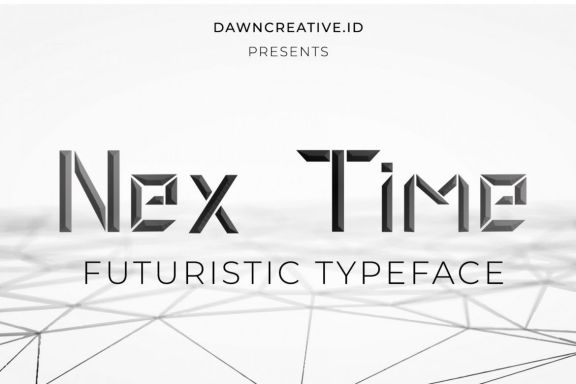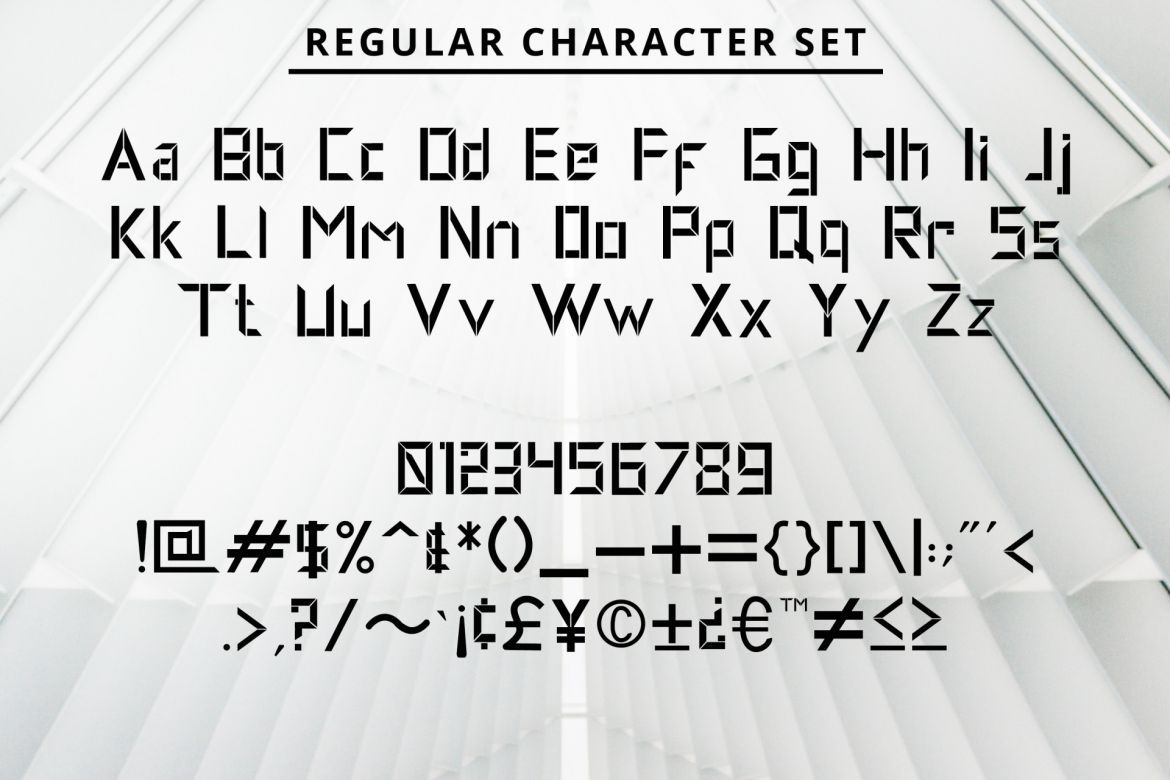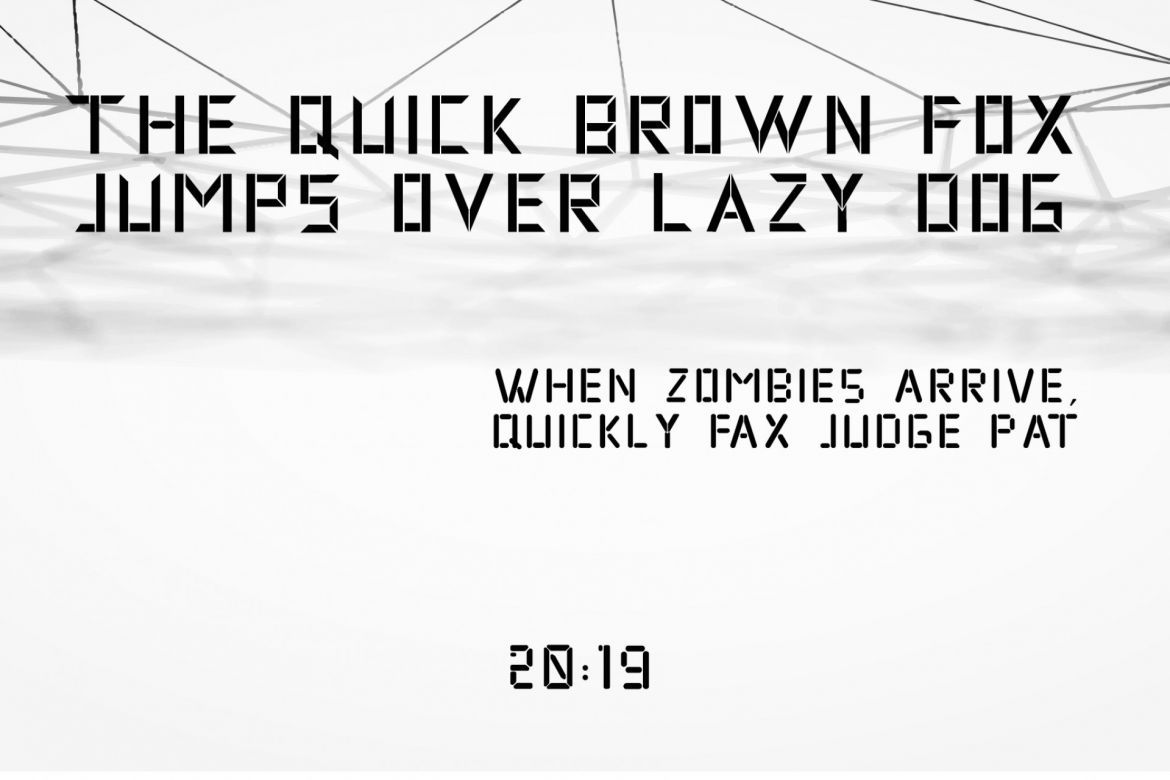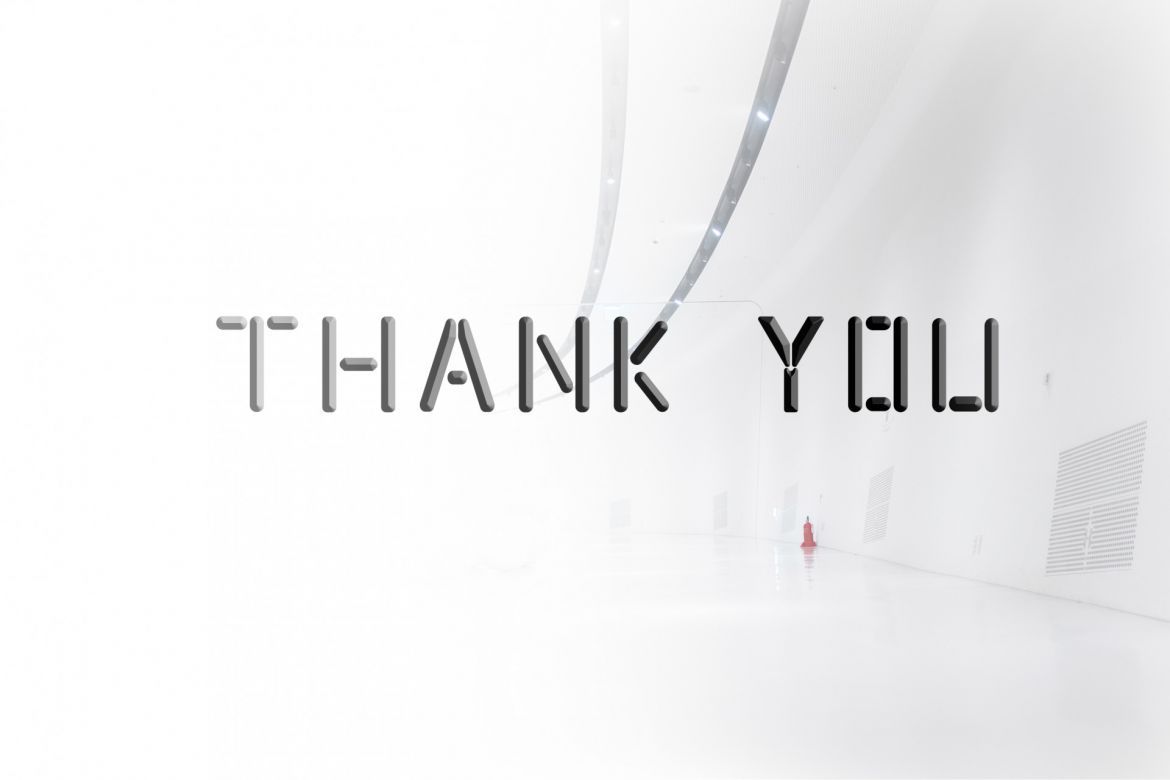
Nex Time Display Font
• Uppercase
• Lowercase
• Number, Punctuation & Ligature
• nex time is a modern, unique and futuristic display typeface.
• nex time is great for any kind of display purpose from logos, tshirt, apparel, quote, handwritten quotes, product packaging, tittle header, poster, merchandise, social media, labels, branding & greeting cards.